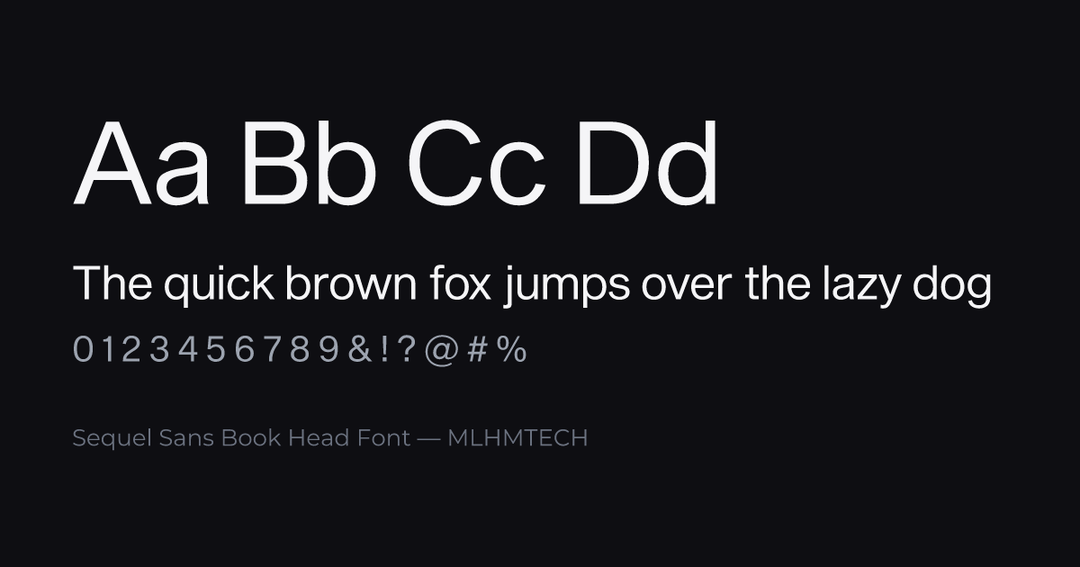
Sequel Sans Book Head Font
Sequel Sans Book Head is a versatile geometric sans-serif font with a clean, modern aesthetic. Ideal for headlines, logos, and branding.
Sequel Sans Book Head is part of the Sequel Sans family, known for its geometric forms and contemporary feel. This particular weight, Book Head, is designed for display use, offering excellent legibility at larger sizes. Its clean lines and balanced proportions make it a great choice for editorial design, branding, and web interfaces.
The font includes a full set of uppercase and lowercase characters, numerals, and punctuation. It supports multiple languages. Whether you're creating a logo, a poster, or a website, Sequel Sans Book Head adds a professional touch.